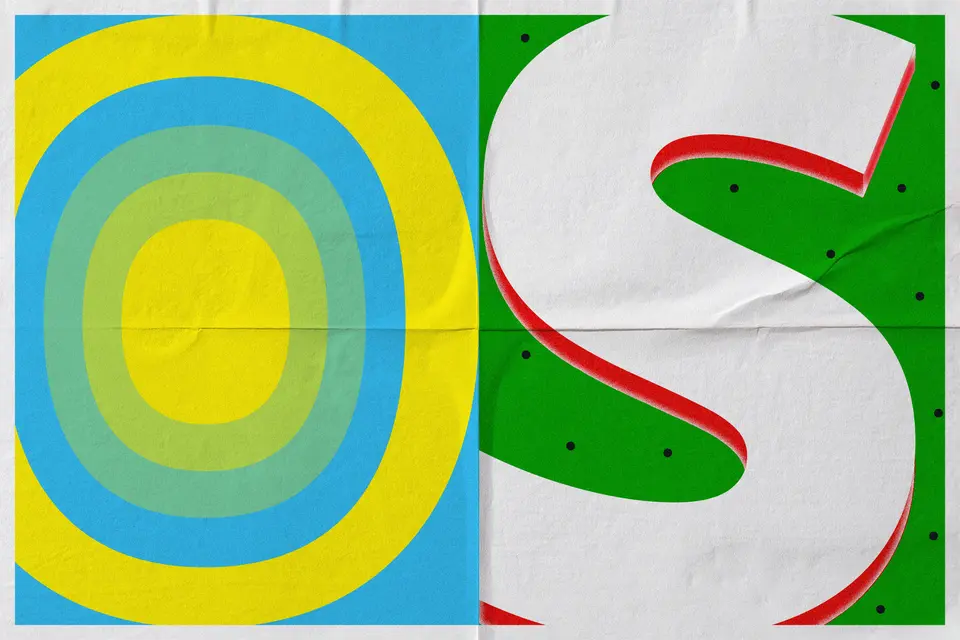
Summary
Open Sans is a popular, quietly effective font that tends to read well for a wide range of learners. Its open letterforms, balanced spacing, and friendly neutrality make it easy to scan on slides, comfortable for long reading passages, and reliable in both print and digital materials. This guide explains why Open Sans works, how to use it well, and what formatting choices make the biggest difference for comprehension and eye comfort.
Key takeaways
What is Open Sans?
Open Sans is a clean, modern sans serif typeface in the humanist style. It’s known for an approachable, neutral look and letterforms built for clarity in everyday reading. Many summaries note design features like open shapes and a large x-height that contribute to screen legibility, making it one of the best fonts for education.
In practice, Open Sans is a strong default choice: It doesn’t call attention to itself, so readers can focus on the content.
Why does Open Sans work well for beginners and advanced learners?
A font that works for all levels usually does three things well:
Open Sans is widely used because its neutral style and clear letterforms support readability across skill levels. For emerging readers, that clarity can make text easier to recognize and follow. For advanced learners, the same clean design can make longer reading sessions feel more comfortable. The larger readability principle is simple: Whether a typeface is serif or sans serif, effective typography should emphasize clarity, spacing, and visual comfort to reduce reading fatigue.
What are the core components of readable classroom typography?
Think “system,” not “single font.” Open Sans shines when the rest of your formatting supports it:
How do you use Open Sans well for instruction?
Here are 7 essential steps
Step 1: Use Open Sans as your default reading font
If you want one font that behaves well across worksheets, slide presentations, and digital posts, Open Sans is a dependable option.
Step 2: Choose weights intentionally
Use:
Step 3: Set sizes that reduce strain
A simple baseline:
Step 4: Add line spacing to support tracking
Many readability issues feel like the page is busy. Increasing line spacing and adding whitespace often helps more than switching fonts. The classroom takeaway is simple: Give text room to breathe.
Step 5: Keep line length reasonable
Long lines increase fatigue and make it harder to find the next line. Aim for moderate line widths in handouts and keep slide lines short.
Step 6: Use high contrast and calm backgrounds
Open Sans can’t save low contrast settings. Use dark text on a light background (or vice versa with strong contrast) and avoid textured backgrounds behind reading text.
Step 7: Standardize a small set of typography rules
Example rules you can reuse:
Once you have your rules, lock them into a template so every new handout starts readable by default.
Open Sans best practices for educators
Quick typography checklist (for Open Sans)
✅ Use Open Sans Regular for body text and Bold for headings
✅ Increase size before changing fonts
✅ Add comfortable line spacing and whitespace
✅ Keep lines moderately short
✅ Maintain strong contrast (no low-contrast text)
✅ Avoid ultra-light font weights for instructional text
✅ Save a reusable template so every material starts readable
Open Sans works well for all levels because it stays out of the way. It features clear letterforms, balanced spacing, and a neutral tone that supports both quick scanning and longer reading. Pair it with strong formatting (size, spacing, contrast, and consistent templates) and your materials will feel easier to read, follow, and learn from.